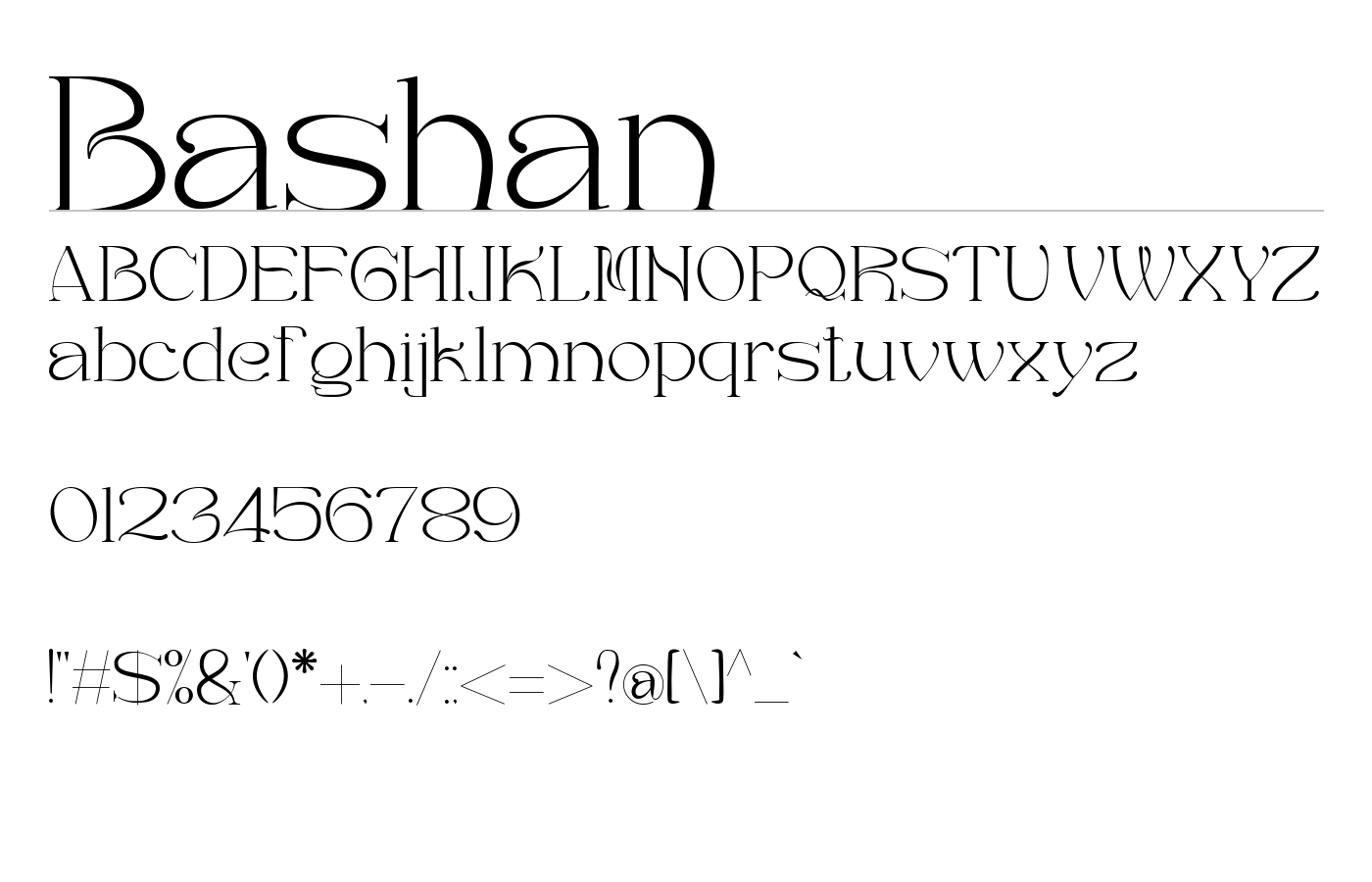
Bashan is a delicate serif font with a refined, modern look characterized by its thin strokes and high contrast between thick and thin lines. Its elegant, slightly whimsical letterforms with unique curves and subtle serifs make it perfect for sophisticated branding, editorial headlines, and luxury packaging where a graceful and artistic feel is desired. This font works best in large sizes to showcase its intricate details and stylish personality.
Bashan Font
About Bashan Font
| Font family | Bashan Font |
| Designer | Muksal Craeative. 2021 |